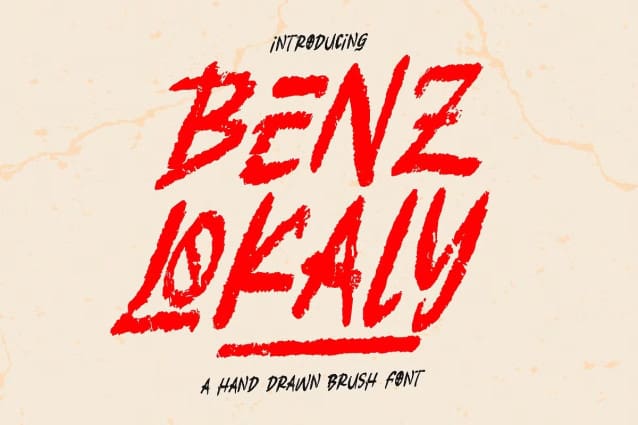
Benz Lokaly Font
Benz Lokaly Font | Hand Drawn Brush, from Denustudios, suitable for any projects such as: logos, branding projects, homeware designs, product packaging, mugs, quotes, posters, shopping bags, t-shirts, book covers, name card, invitation cards, greeting cards, label, photography, watermark, special events, and all your other lovely projects that need a Hand Drawn Brush taste.